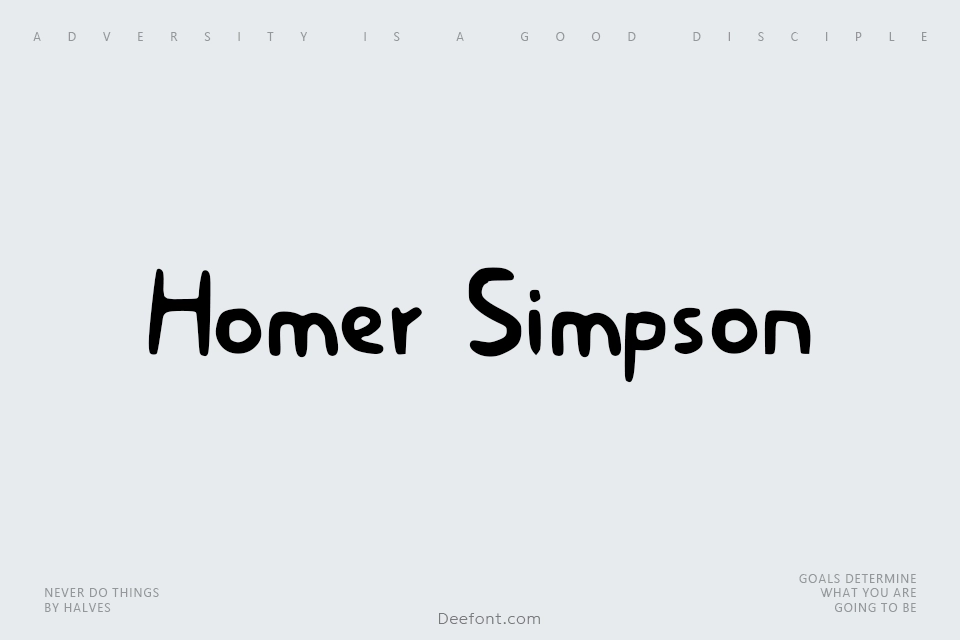
Homer Simpson Font
Homer Simpson is a playful, hand-drawn typeface that captures a whimsical cartoon aesthetic. Designed by João Pereira, this font features rounded edges, uneven lines, and a casual appearance reminiscent of children’s handwriting and comic strip lettering. With bold presence and friendly approachability, it excels in creative projects requiring humor and personality. The font’s informal nature makes it ideal for playful branding, cartoon-style designs, and designs that need a touch of fun. Suitable for headlines, logos, and decorative applications seeking a distinctly playful character. Perfect for projects targeting younger audiences or any design needing casual, cheerful appeal.